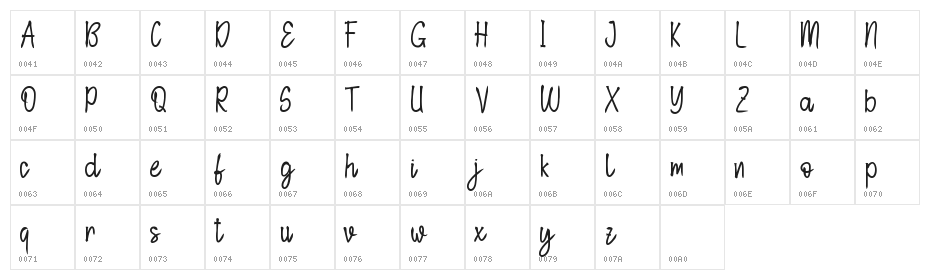
Motherblood - Personal Use Font
This font features a playful and energetic handwritten style, characterized by its tall, narrow letters with a slight slant. The strokes are smooth and fluid, giving it a casual yet artistic appearance. The uppercase and lowercase letters maintain a consistent style, with a noticeable contrast between thick and thin strokes, adding to its dynamic look. The font includes a full set of uppercase and lowercase letters, numbers, and a selection of special characters, making it versatile for various design needs.
| Overall Style | Casual, Artistic |
| Use Case | Headlines, Creative projects, Personal branding |
| Proposed Projects | Ideal for greeting cards, invitations, personal branding, and creative projects that require a casual and artistic touch. |